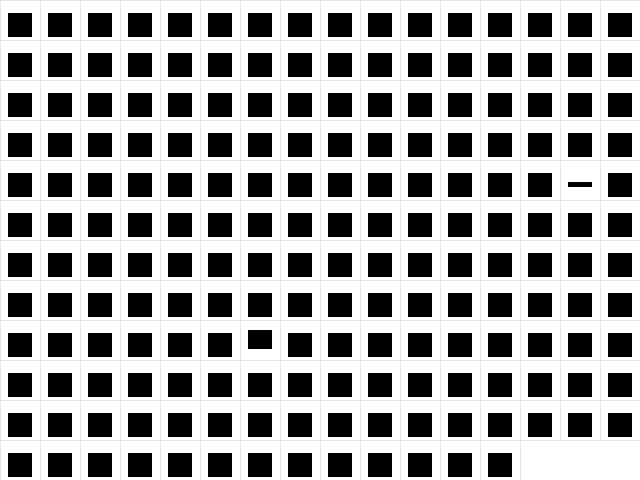
Ahem Regular
| Copyright | Most characters are the em square, except &EAcute and "p", which show ascent/descent from the baseline. Useful for testing composition systems. Produced by Todd Fahrner for the CSS Samurai's browser testing. |
Design Context for Ahem Typeface
Ahem offers clean, dependable letterforms without strong stylistic allegiance, making it a practical choice for designers who need flexibility.